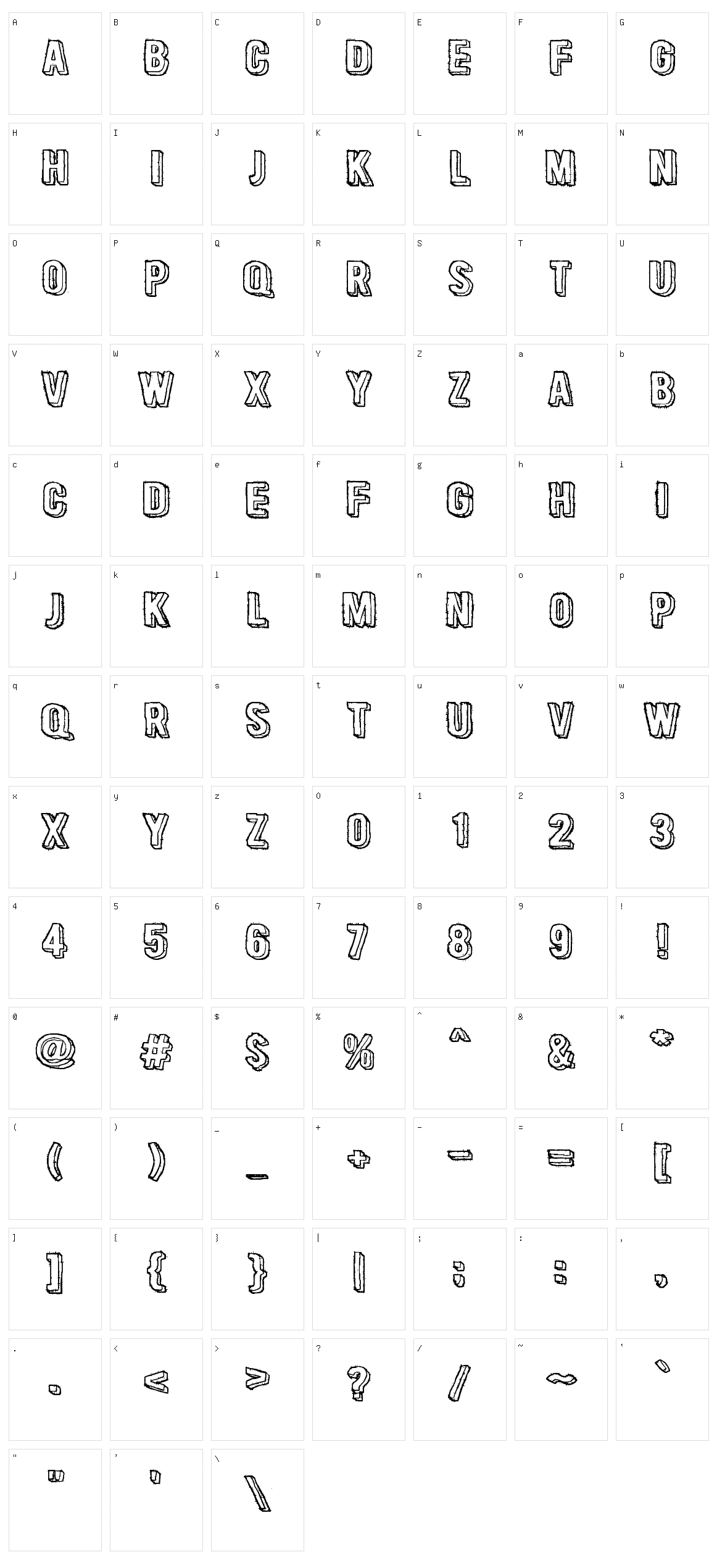
The free font Cactus Tequila is carefully designed by junkohanhero, showcasing a thoughtful balance of creativity and usability and falls under the Eroded font style. When you download the ZIP file, it contains only 79.73 KB of font files, making it lightweight and quick to download. Please review the license details below to understand permitted usage and distribution rights. If license information is not available, we recommend using this font for personal projects only or contacting the author directly for commercial usage permissions.